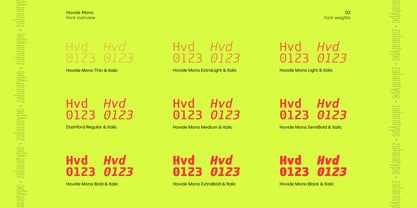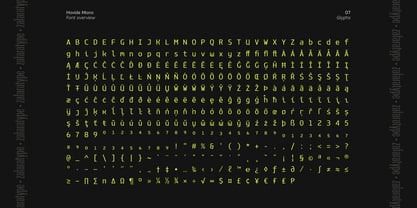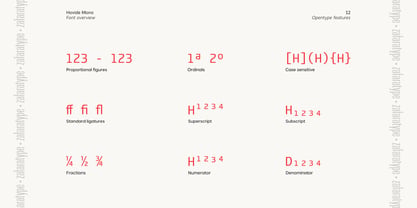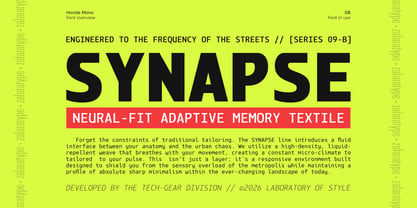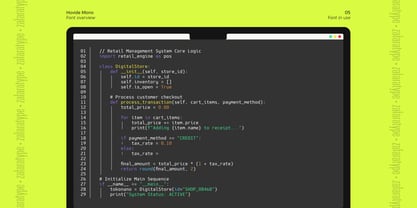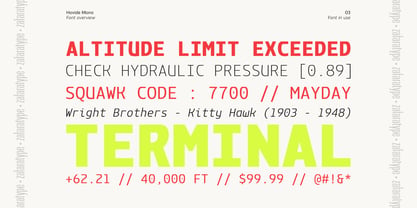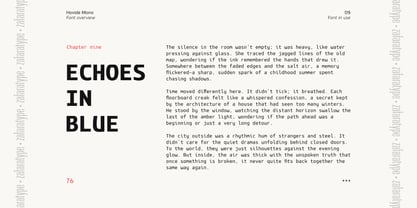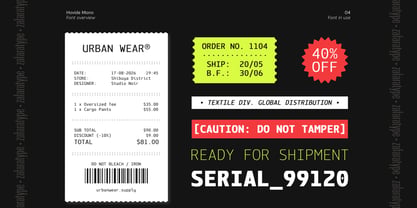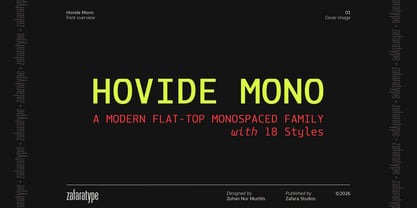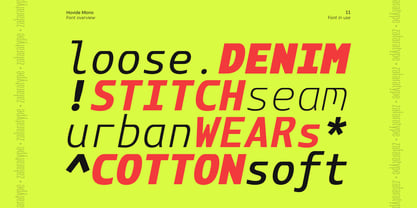
Hovide Mono
by Zafara Studios
The Hovide Mono Font Family was designed by Zohan Nur Muchlis and published by Zafara Studios. Hovide Mono contains 18 styles and family package options. More about this family
Hovide Mono is a modern monospaced typeface family built with a distinctive flat-top construction that gives each character a sharp, structured, and futuristic appearance. Designed with precision and consistency in mind, it blends technical geometry with clean readability, making it suitable for contemporary digital environments.
Its flattened counters and engineered proportions create a unique visual rhythm rarely found in traditional monospaced fonts. From interface design, coding layouts, and dashboards to branding, posters, and editorial applications, Hovide Mono delivers a strong industrial-modern personality while maintaining excellent clarity across sizes.
The family includes 18 styles ranging from Thin to Black with matching italics, offering extensive flexibility for both functional and expressive typography. Featuring 456 glyphs with extensive Latin Extended coverage, Hovide Mono supports multilingual typography across a wide range of Western, Central, and Eastern European languages, making it suitable for global communication and international design systems.
With its balanced spacing, modern construction, and distinctive mono character, Hovide Mono is designed to stand out in futuristic visuals, technology branding, modern interfaces, and creative systems.